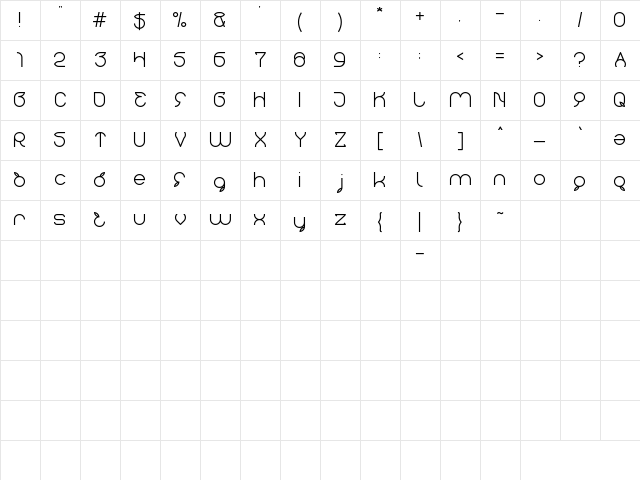
thefotosintesis Regular
Design Context for thefotosintesis Typeface
thefotosintesis offers clean, dependable letterforms without strong stylistic allegiance, making it a practical choice for designers who need flexibility.